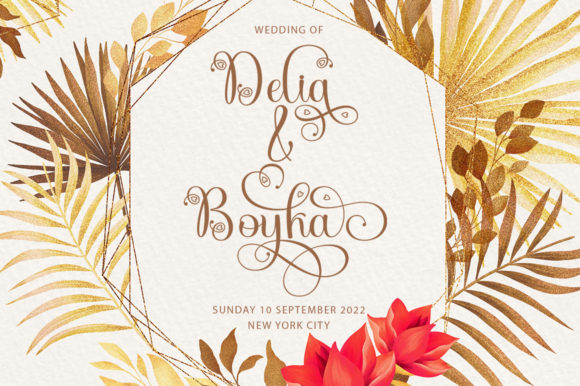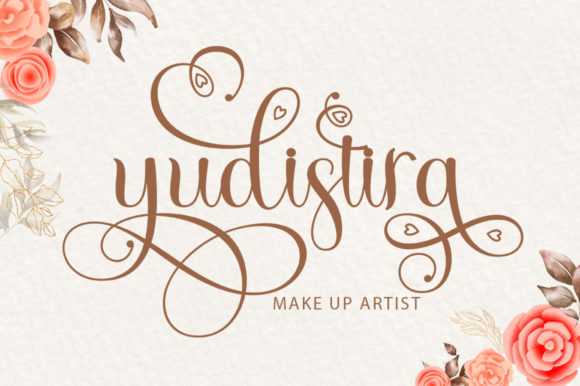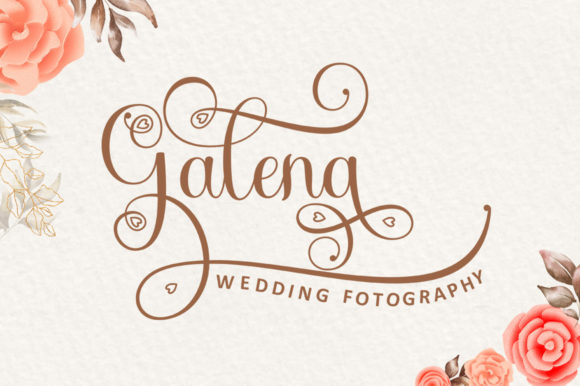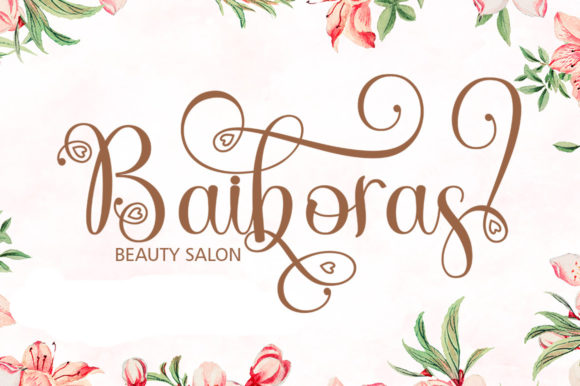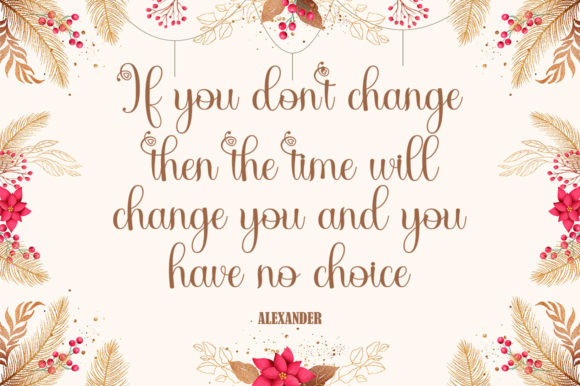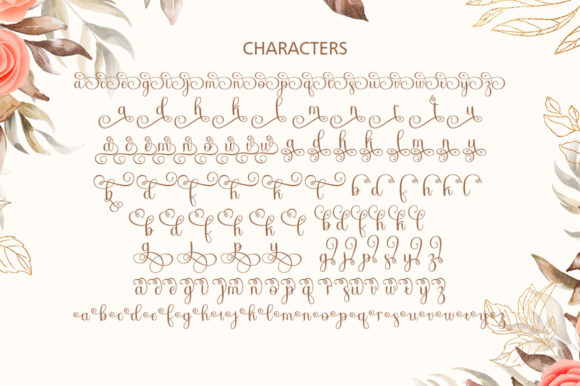
Yulanda Font
About Yulanda Font
Yulanda is a highly detailed and thin lettered script font. Get inspired by its gorgeous style and use it to create lovely designs. This font is PUA encoded which means you can access all glyphs and swashes with ease!